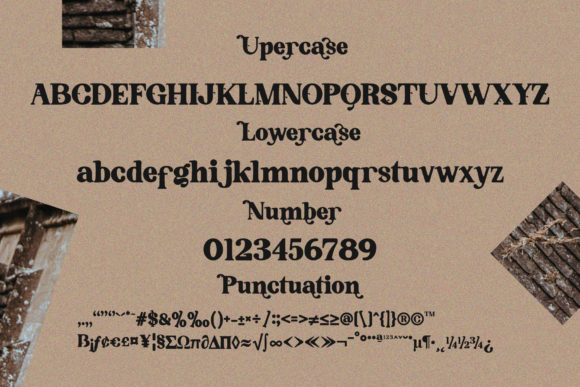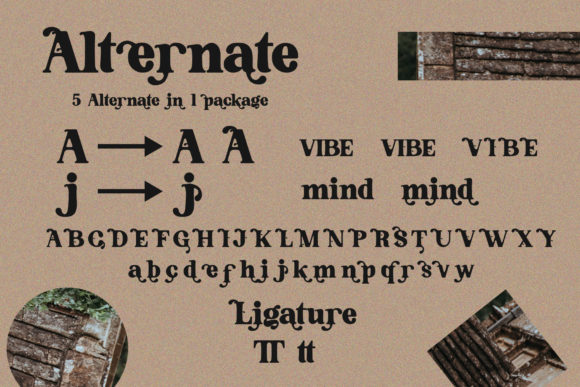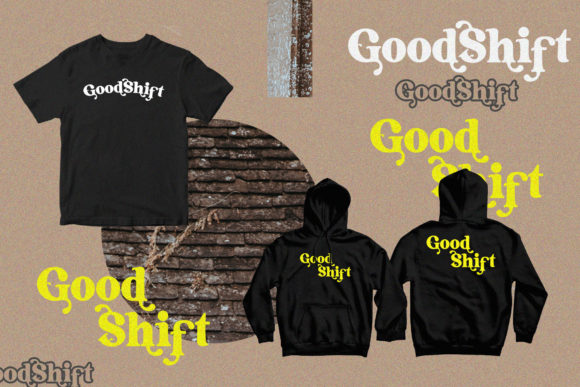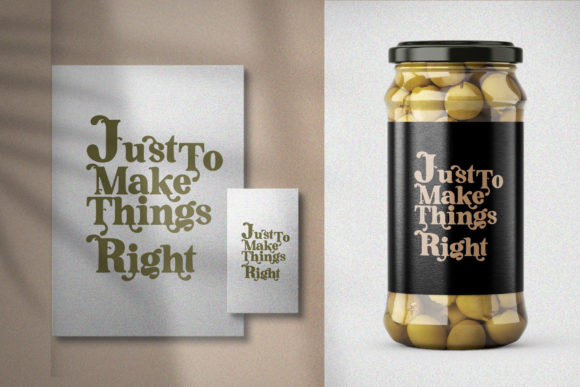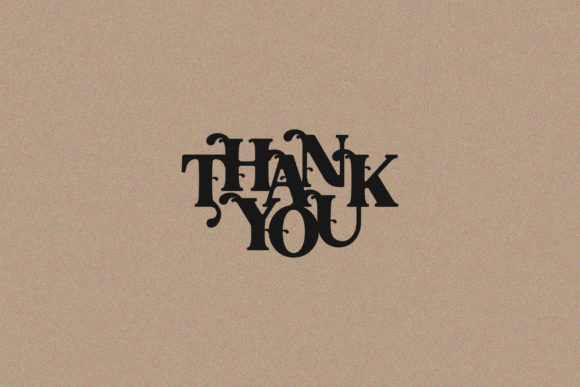
Introducing Good Shift Font: Elevate Your Designs with a Cool, Trendy, and Bold Serif
Are you on the hunt for a font that can instantly elevate your designs and make them stand out from the crowd? Look no further than Good Shift Font, a cool, trendy, and bold serif font that’s taking the design world by storm. In this article, we’ll dive into the features, benefits, and uses of Good Shift Font, and explore how you can harness its power to take your creations to the next level.
What is Good Shift Font?
Good Shift Font is a modern, high-impact serif font that’s perfect for designers and crafters looking to add a touch of sophistication and style to their work. With its bold lines, elegant curves, and refined details, this font is sure to make a statement. Whether you’re working on a branding project, a marketing campaign, or a personal craft, Good Shift Font is the perfect choice for anyone looking to make a lasting impression.
PUA Encoding: Unlocking Endless Creative Possibilities
One of the standout features of Good Shift Font is its PUA (Private Use Area) encoding. This means that you can access all glyphs and swashes with ease, giving you unparalleled creative freedom. With PUA encoding, you can effortlessly navigate the font’s extensive character set, including alternative letters, ligatures, and decorative elements. This level of flexibility allows you to experiment with different styles, try out new ideas, and push the boundaries of what’s possible with typography.
Key Features of Good Shift Font
- Bold and Trendy Design: Good Shift Font boasts a bold, trendy design that’s perfect for making a statement.
- PUA Encoding: Enjoy effortless access to all glyphs and swashes, and unlock endless creative possibilities.
- Sophisticated Serif Style: Add a touch of elegance and sophistication to your designs with Good Shift Font’s refined serif style.
- Extensive Character Set: Explore a wide range of characters, including alternative letters, ligatures, and decorative elements.
Why Choose Good Shift Font?
So why should you choose Good Shift Font for your next design project? Here are just a few compelling reasons:
- Instant Impact: Good Shift Font is designed to make a statement, and its bold, trendy style is sure to grab attention.
- Versatility: With its PUA encoding and extensive character set, Good Shift Font can be used for a wide range of design applications.
- Elegance and Sophistication: Add a touch of refinement and style to your designs with Good Shift Font’s sophisticated serif style.
How to Use Good Shift Font in Your Designs
Ready to get started with Good Shift Font? Here are a few tips for incorporating this amazing font into your designs:
- Branding and Logos: Use Good Shift Font to create bold, eye-catching logos and branding materials that make a lasting impression.
- Marketing and Advertising: Add a touch of sophistication and style to your marketing campaigns with Good Shift Font.
- Crafting and Scrapbooking: Use Good Shift Font to add a personal touch to your craft projects, scrapbooking, and other paper crafts.
- Digital Design: Good Shift Font is perfect for digital design applications, including social media graphics, blog posts, and website headers.
| Font Name | Good Shift Font |
| Author | drg studio |